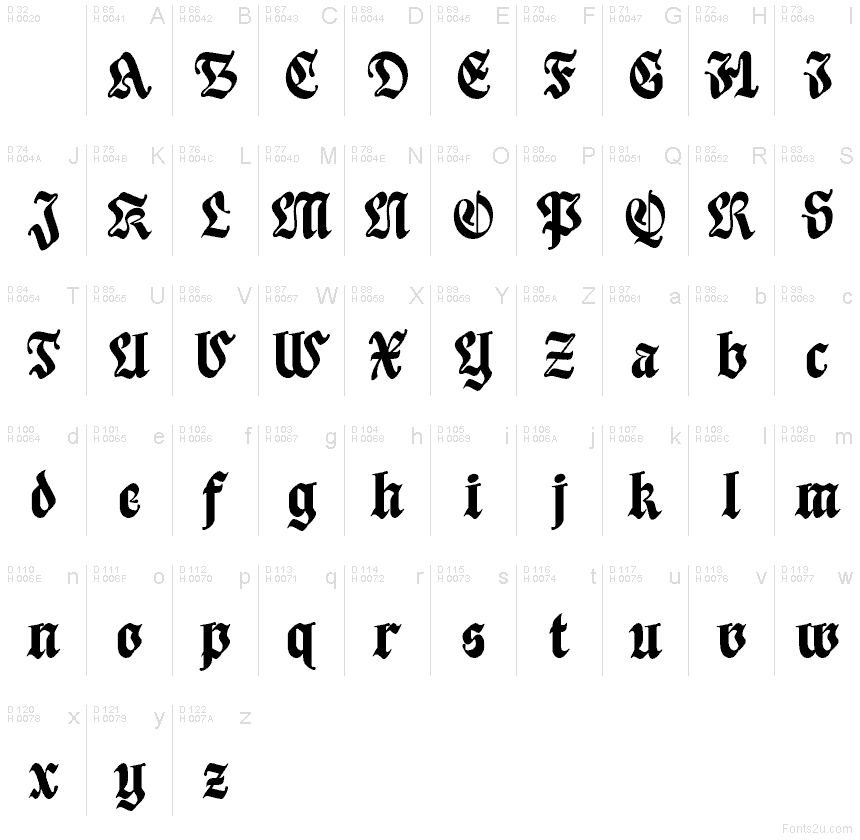
CS Rebelion Regular Demo
CS Rebelion font by Craft Supply Co. is a free bold condensed medieval gothic display font. It stands out with steep, chiseled strokes and inky wedges that lock into a tight vertical rhythm, while thorny curves and barbed terminals add a rebellious edge. The condensed build packs impact without hogging space, giving headlines that smoked-metal density you can feel.
This free font shines on band logos, festival posters, game titles, tattoo studio branding, craft beer labels, streetwear graphics, and dark fantasy book covers. Using CS Rebelion at large sizes with a touch of tracking lets the texture breathe; pair it with a plain grotesk for body copy to keep the message clear while the headline growls.